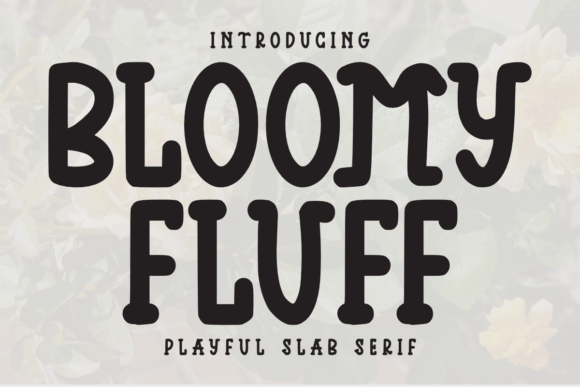
Bloomy Fluff: A Playful Font for a Fun-Filled Design
In the world of typography, finding the right font can make all the difference in how your message is perceived. One such font that stands out with its charm and character is Bloomy Fluff. Designed to evoke joy and whimsy, Bloomy Fluff is a delightful slab serif typeface that features bubbly curves and a bold personality. Whether you're crafting content for children or branding playful products, this font brings a unique sense of fun and friendliness to any design.
What Makes Bloomy Fluff Unique?
Bloomy Fluff isn’t just another font; it’s a visual experience. Its name alone suggests a soft, cheerful aesthetic, and the design lives up to that promise. The font combines the structural strength of slab serifs with the rounded, approachable feel of cursive or decorative scripts. This blend results in a typeface that is both readable and eye-catching, making it ideal for projects where warmth and creativity are essential.
The bubbly curves in each letter add a sense of motion and playfulness, while the bold personality ensures that the text remains strong and legible even at larger sizes. These characteristics help create a balance between fun and functionality, allowing designers to use it effectively in a wide range of applications without compromising on clarity.
Key Features of Bloomy Fluff
- Playful Slab Serif Style: Combines the boldness of slab serifs with a softer, more whimsical touch.
- High Readability: Despite its decorative elements, the font remains clear and easy to read across different platforms and media.
- Wide Character Set: Offers support for multiple languages and symbols, making it versatile for international audiences.
- Customizable Weights and Styles: Includes variations such as regular, bold, italic, and condensed to suit diverse design needs.
- Optimized for Digital Use: Works well on screens of all sizes, from mobile devices to large monitors.
Ideal Uses for Bloomy Fluff
Bloomy Fluff shines in contexts where a lighthearted and engaging tone is desired. Here are some of the best places to put it to work:
Children’s Books and Educational Materials
For those creating books aimed at young readers, Bloomy Fluff adds an inviting and imaginative flair. The font's friendly appearance helps make reading less intimidating and more enjoyable for children. It's particularly effective in picture books, storybooks, and educational resources that need to capture attention and spark curiosity.
Toy Branding and Packaging
When designing packaging or promotional materials for toys, the choice of font plays a big role in attracting both kids and parents. Bloomy Fluff's bold yet playful style makes it perfect for toy brands looking to communicate a sense of fun and excitement. It can be used for product names, slogans, and labels, helping to reinforce a brand’s identity in a memorable way.
Creative Projects and Social Media Content
From digital illustrations to social media posts, Bloomy Fluff can elevate the visual appeal of your creative output. Its versatility allows it to be used in headers, captions, and call-to-action buttons, making it a valuable asset for content creators who want to stand out online. The font works especially well when paired with bright colors and cartoonish imagery, enhancing the overall aesthetic of the project.
Event Invitations and Themed Designs
If you're organizing a birthday party, festival, or any event with a joyful theme, Bloomy Fluff can add the finishing touch to your invitations and signage. Its warm and welcoming vibe fits perfectly with themes centered around celebration, nostalgia, or fantasy. You'll find it enhances the user experience by setting a positive and engaging tone right from the start.
Who Can Benefit from Using Bloomy Fluff?
Bloomy Fluff is suitable for a broad audience, including:
- Graphic Designers: Those working on editorial designs, branding, or marketing materials for youth-oriented or family-focused clients.
- Business Owners: Entrepreneurs in industries like toys, entertainment, or children’s products looking to build a recognizable and appealing brand image.
- Content Creators: Bloggers, YouTubers, and social media influencers aiming to create content with a personal, fun, and friendly feel.
- Teachers and Educators: Individuals who want to make learning materials more engaging and accessible for young students.
- Marketing Professionals: Teams developing campaigns for events, games, or promotions that target a younger demographic or emphasize positivity.
Strengths and Limitations
Like any font, Bloomy Fluff has its strengths and considerations. Understanding these can help you decide if it's the right fit for your next project.
Strengths:
- Its unique aesthetic sets it apart from more traditional fonts.
- Offers high visual impact while maintaining readability in most contexts.
Whether you're designing a children’s book, a toy package, or a social media campaign, Bloomy Fluff could be the perfect partner in your creative process. Just remember to evaluate its strengths and limitations carefully, and always prioritize the needs of your audience. After all, great design is about communication—and sometimes, the right font can say everything.